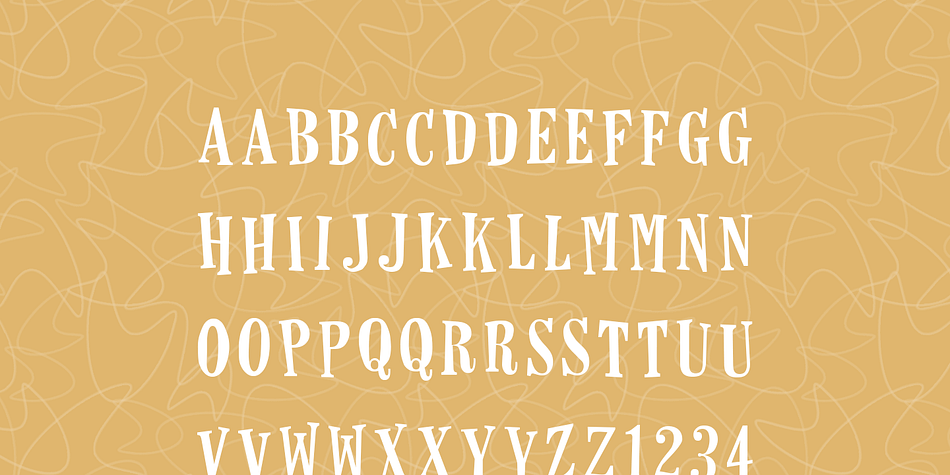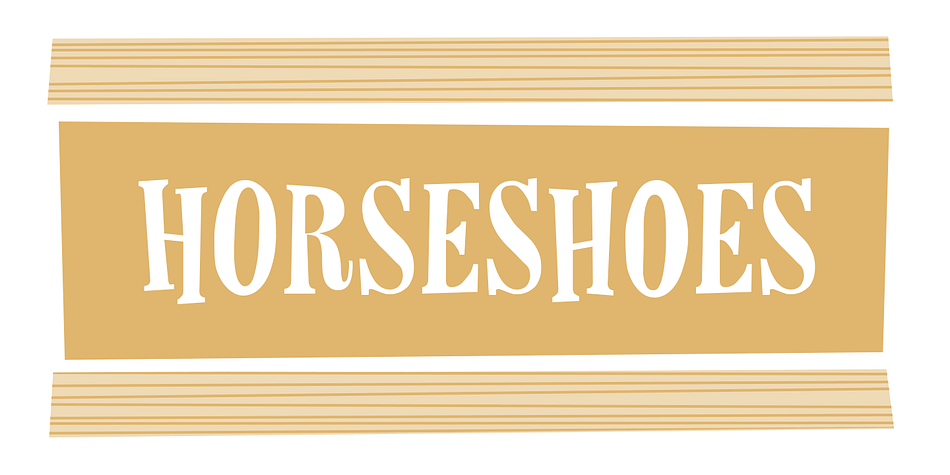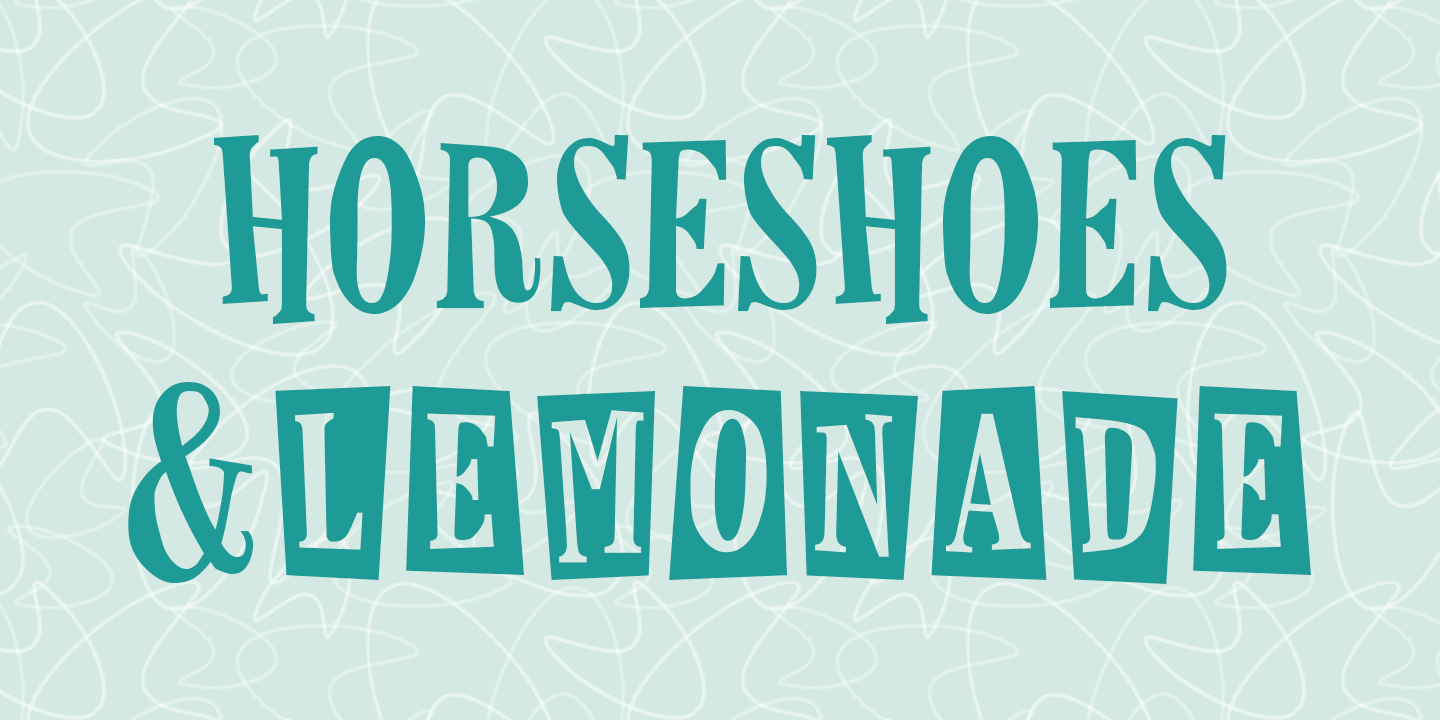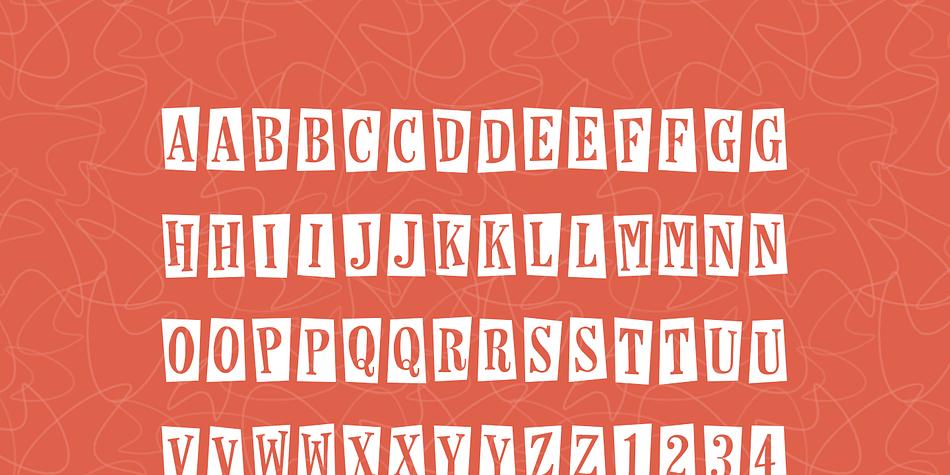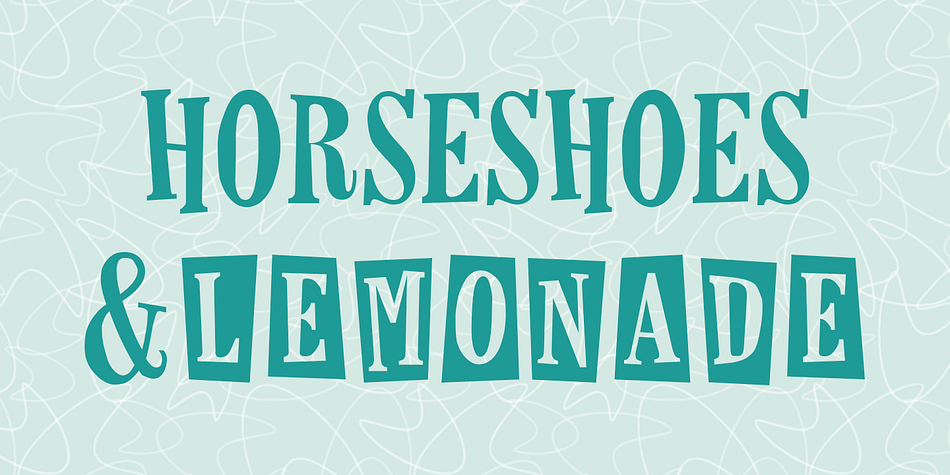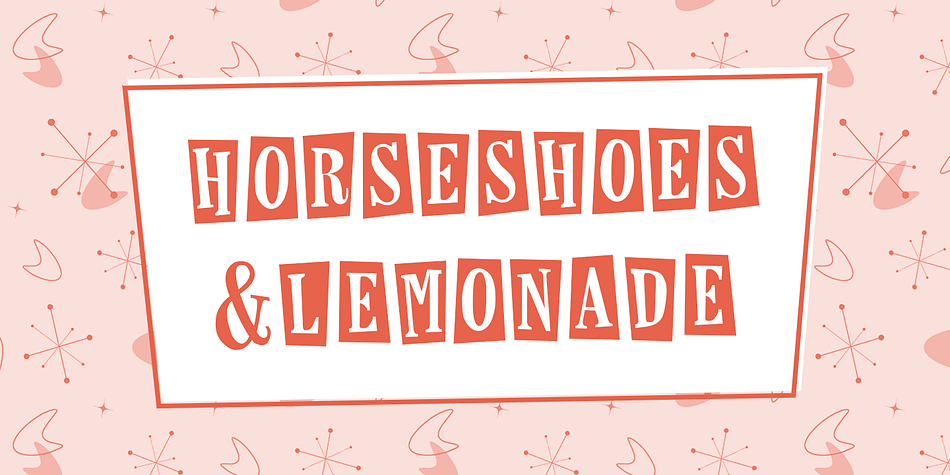
Designed by Lauren Ashpole, Horseshoes is a dingbat, retro and hand display font family. This typeface has two styles and was published by Lauren Ashpole.
Inspired by vintage fifties and sixties design elements. The lettering features exaggerated angles with the square borders popular at the time.
All letters are capitals but the lowercase characters provide variations. This package includes an additional font containing only the letters without the borders.